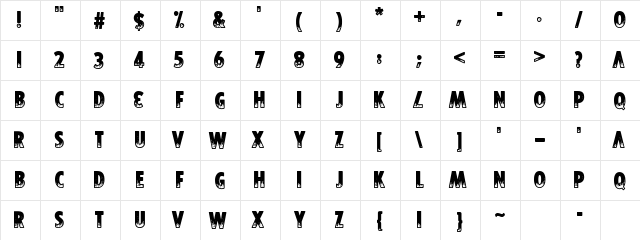
Tyrannothesaurus Regular
| Designer | NAL |
Design Context for Tyrannothesaurus Typeface
Tyrannothesaurus takes a measured approach to typography — its balanced proportions and neutral character make it a reliable workhorse for both digital and print work.